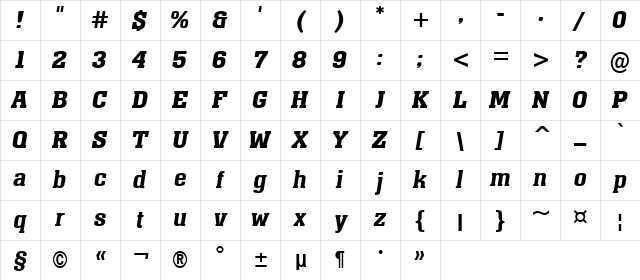
a_Monumento DemiBoldItalic
Style: DemiBoldItalic
Design Context for a_Monumento
a_Monumento is a composed and adaptable typeface that performs quietly and consistently across a wide range of design contexts. The slanted form adds forward momentum and visual energy. Its bold stroke weight gives it real presence on the page.
Pro Tip: Use a_Monumento for emphasis, pull quotes, and subheadings where its slanted energy can add rhythm to the layout.